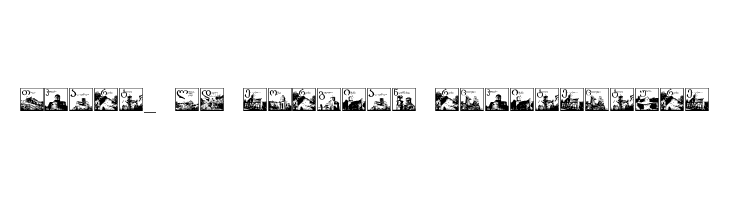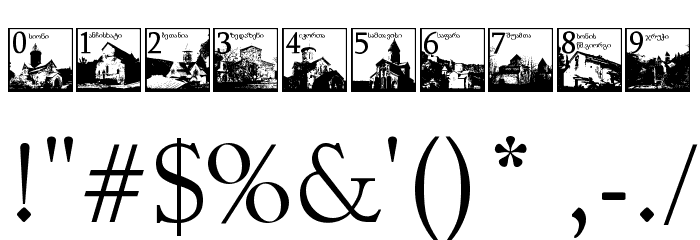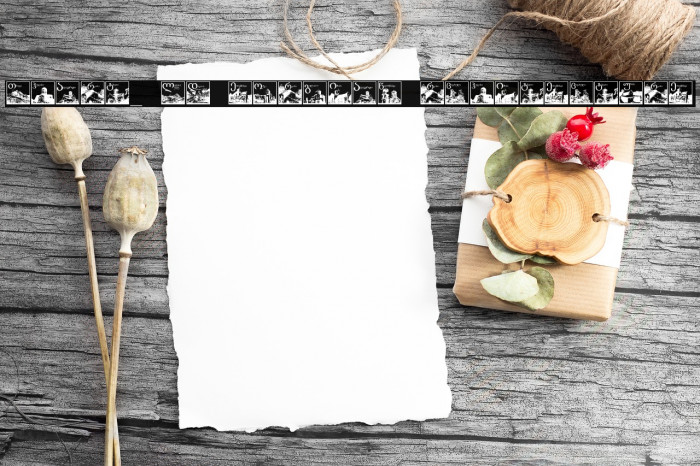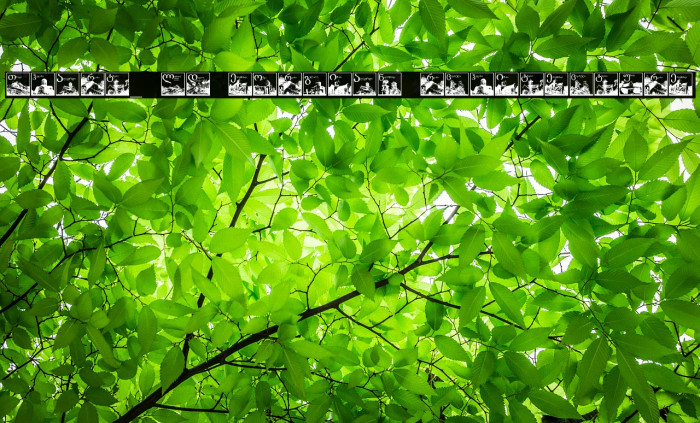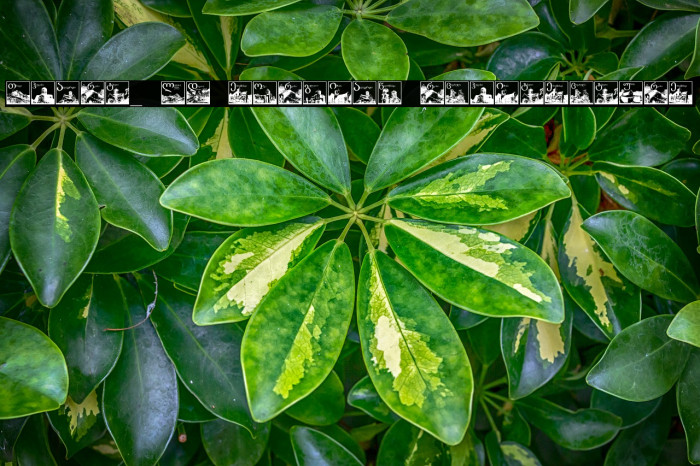
Thart_OldGeorgianArchitecture Font
This font features a unique blend of historical and architectural elements, with each character embedded within an image of Georgian architecture. The letters are stylized with a decorative flair, reminiscent of ancient scripts, and are set against detailed black-and-white photographs of buildings. The overall design is intricate, with each character offering a glimpse into the rich architectural heritage of Georgia. The font is highly decorative, making it more suitable for artistic and thematic projects rather than standard text applications.
A decorative font featuring Georgian architectural imagery within each character from Uncategorized fonts.
- Proposed Projects: Ideal for cultural or historical projects, themed posters, artistic displays, and educational materials about Georgian architecture.
- Use Case: Artistic displays, Themed posters